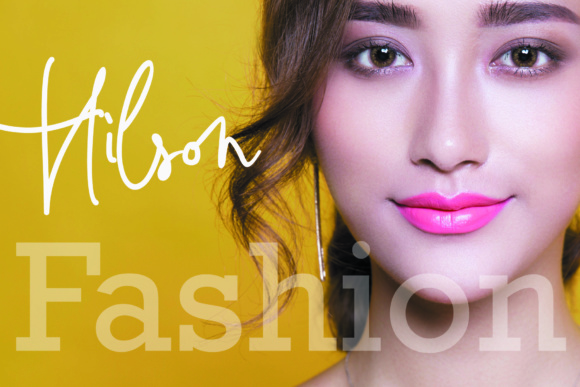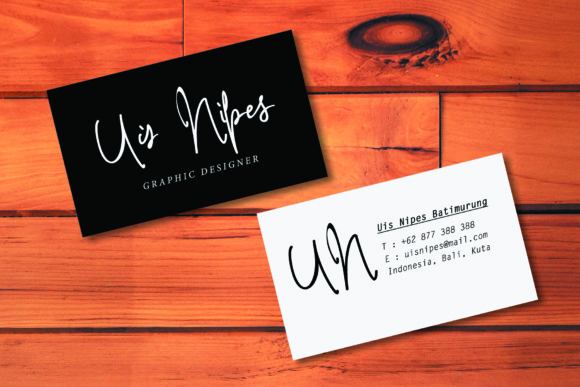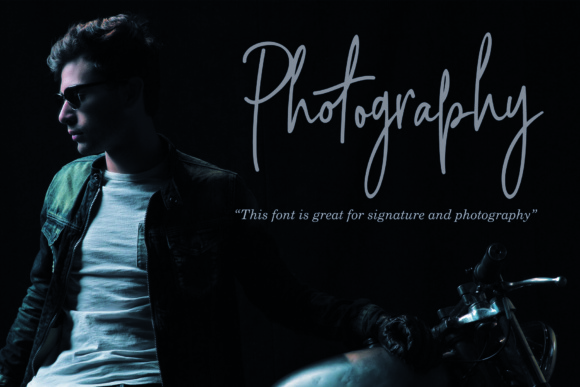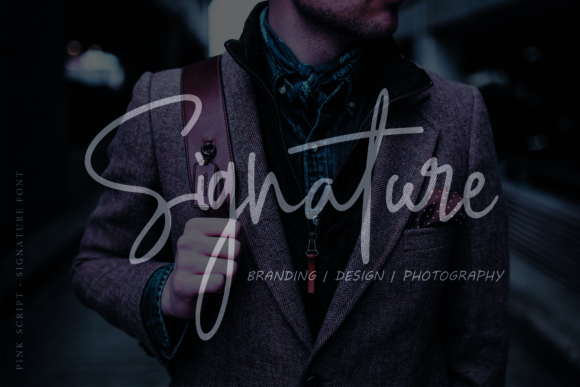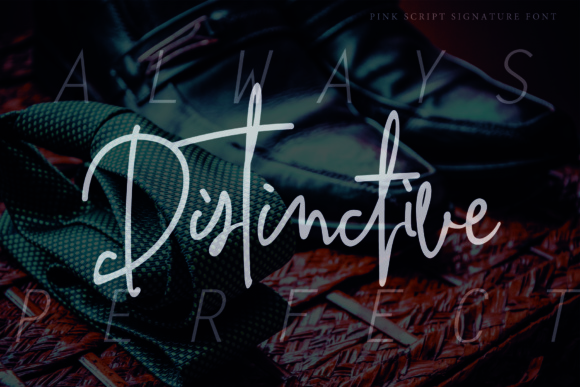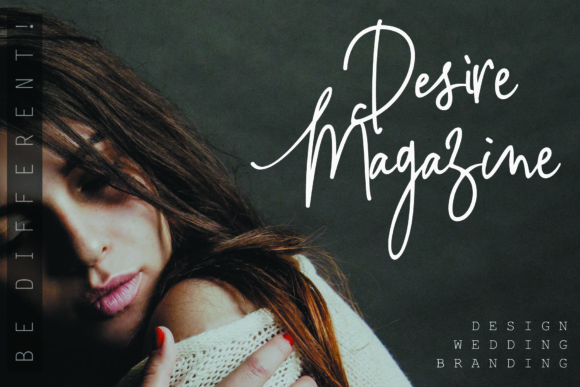
Introduction to Pink Script Font
Do you ever find yourself in the midst of a creative project, desperately searching for the perfect font to bring your vision to life? The search is over, thanks to the emergence of the Pink Script Font. This fashionable and quirky handwriting font has taken the design world by storm, and for good reason.
With its natural, handwritten feel and stylish extras, the Pink Script Font is the perfect addition to any design project. Whether you’re working on a free download or a high-end commercial campaign, this font is sure to add a touch of sophistication and elegance to your work.
As a valuable design resource, the Pink Script Font offers a range of benefits for designers, including a transparent background and a full set of lowercase alternates. It’s the perfect choice for anyone looking to elevate their creative project and take their design to the next level.
Key Features of Pink Script Font
- Unique, elegant script design perfect for creative projects, such as wedding invitations, logos, and typography-based designs.
- Perfect for adding a touch of elegance and sophistication to your designs, with its beautiful, cursive script style.
Honest Review: Pink Script Font
I recently had the chance to experiment with the Pink Script Font, and I must say it’s been a great addition to my design resources. The font is perfect for those creative projects that require a touch of elegance and sophistication.
- ✨ High-quality design that’s perfect for branding and advertising materials.
- ✨ The font is highly versatile and can be used for a wide range of creative projects.
However, I did encounter a few limitations while using the Pink Script Font.
- ⚠️ Limited font sizes, which can make it difficult to use in larger designs.
- ⚠️ Not ideal for use in small text or body copy, as it can become difficult to read.
Overall, I’m impressed with the Pink Script Font and would highly recommend it to designers looking for a high-quality, elegant font for their creative projects. It’s definitely a valuable addition to any design resource library.
To get the most out of the Pink Script Font, experiment with different font sizes, colors, and layering techniques. This font is versatile and can be used in a variety of design contexts.
The Pink Script Font is commonly used in wedding invitations, social media graphics, and product labels. Its elegant and sophisticated design makes it perfect for any project that requires a touch of class.
Q: Can I use the Pink Script Font on a transparent background?
Yes, the Pink Script Font is designed to work well on transparent backgrounds. However, please note that the font’s transparency may vary depending on the design application and the specific settings used. It’s always a good idea to test the font in your specific design project before finalizing your design.